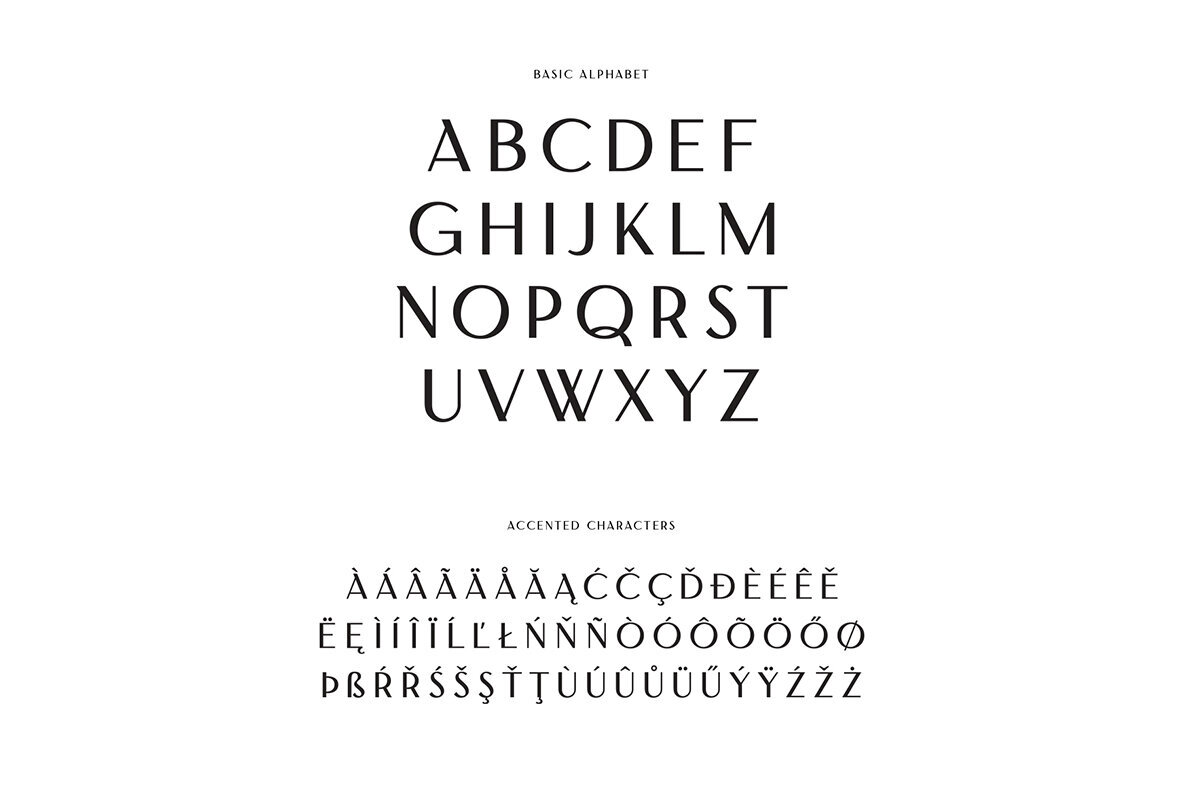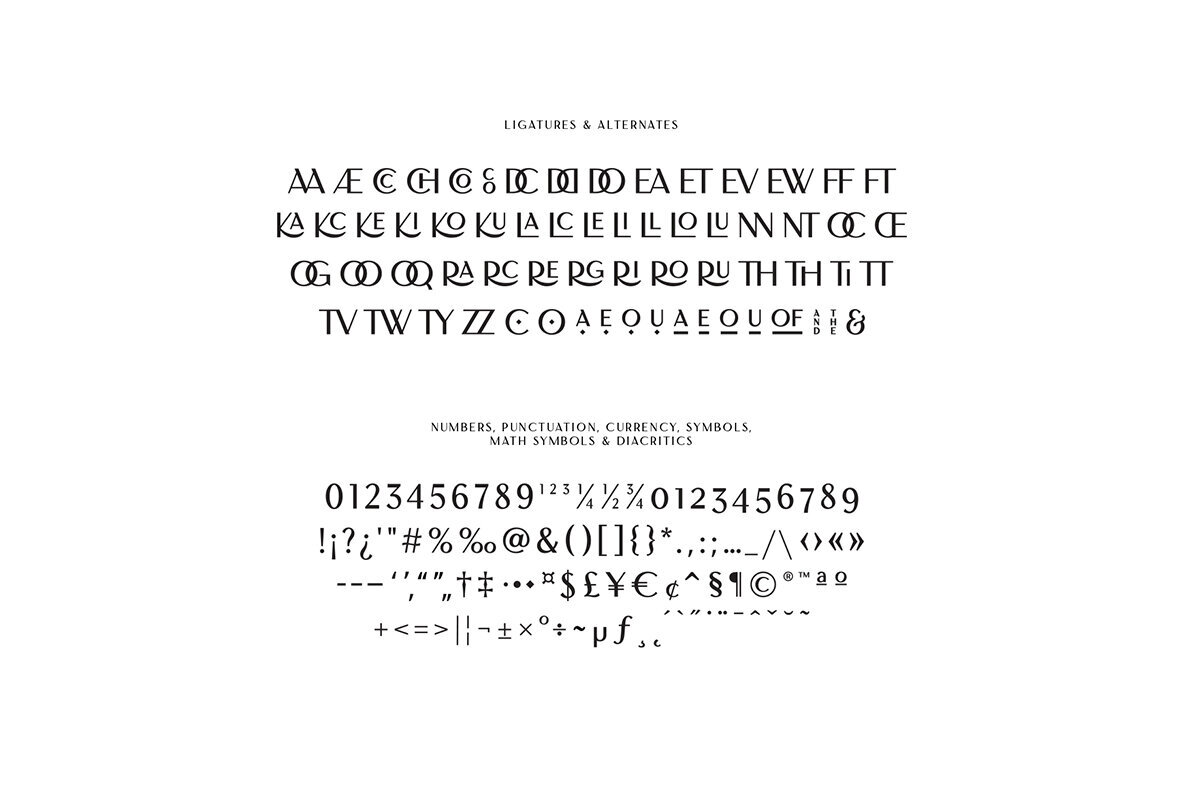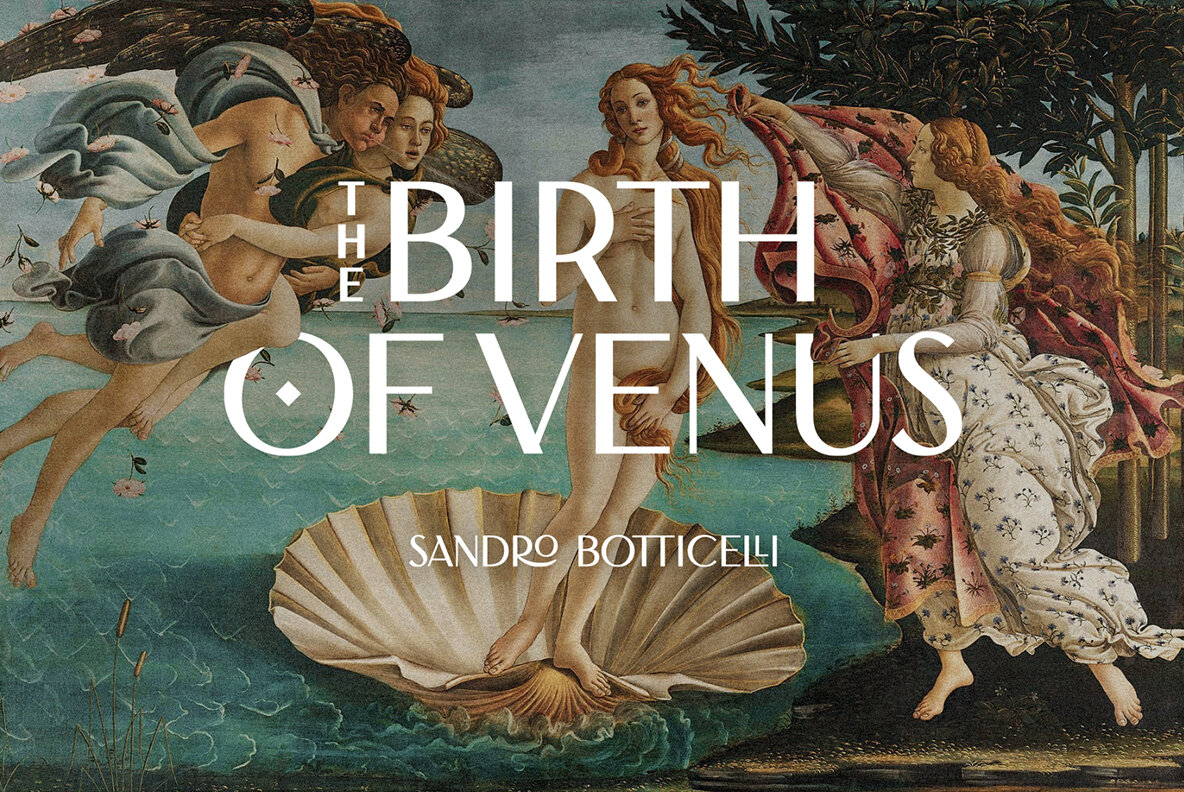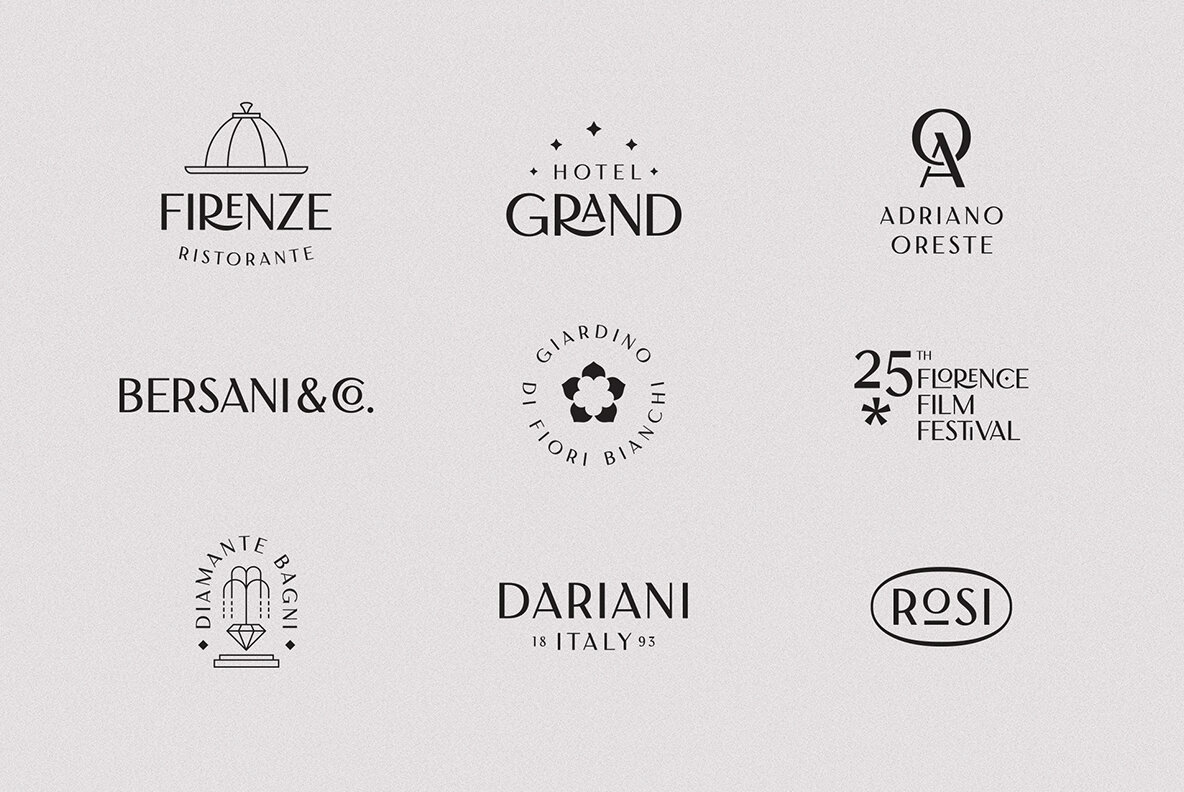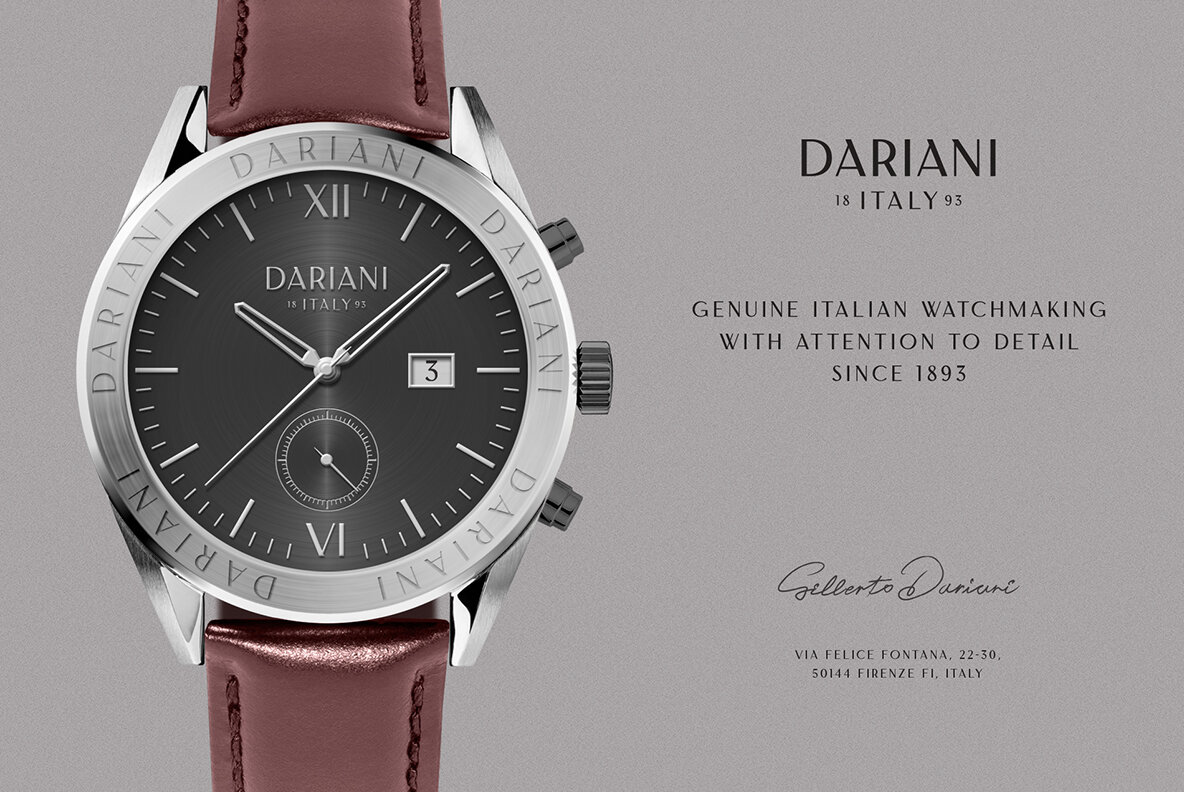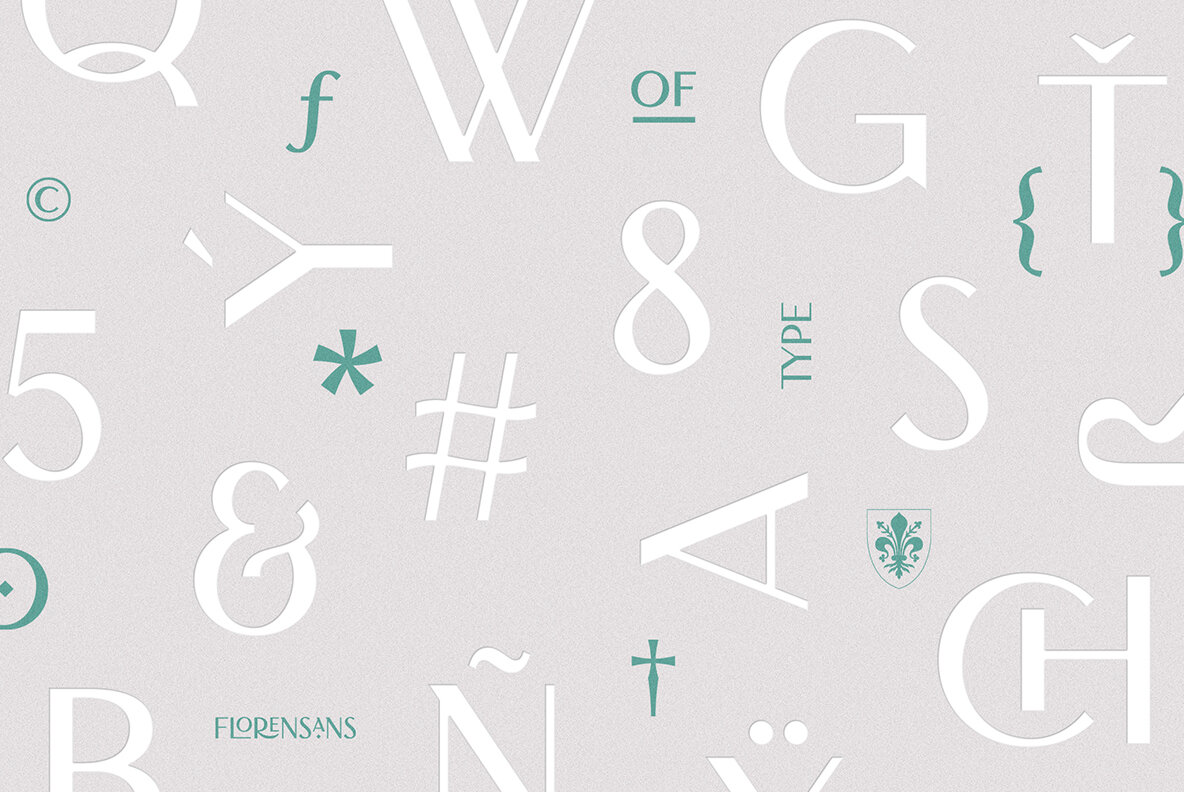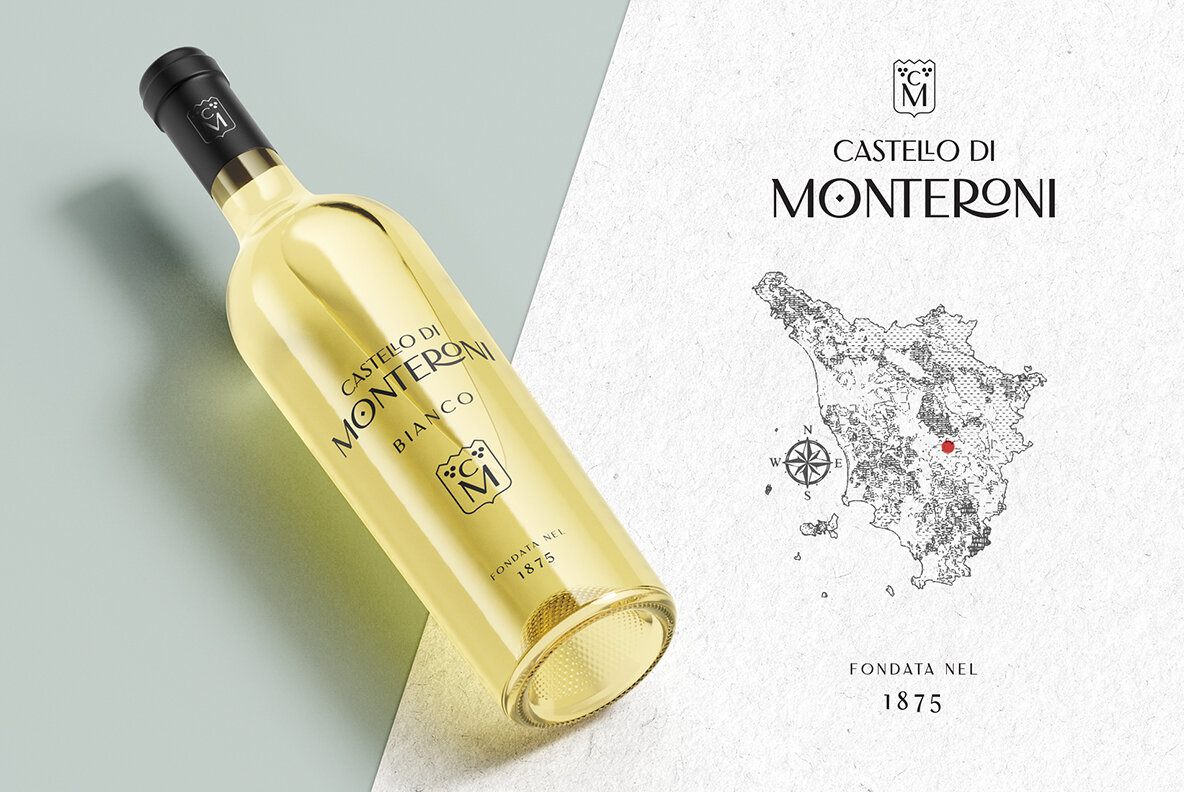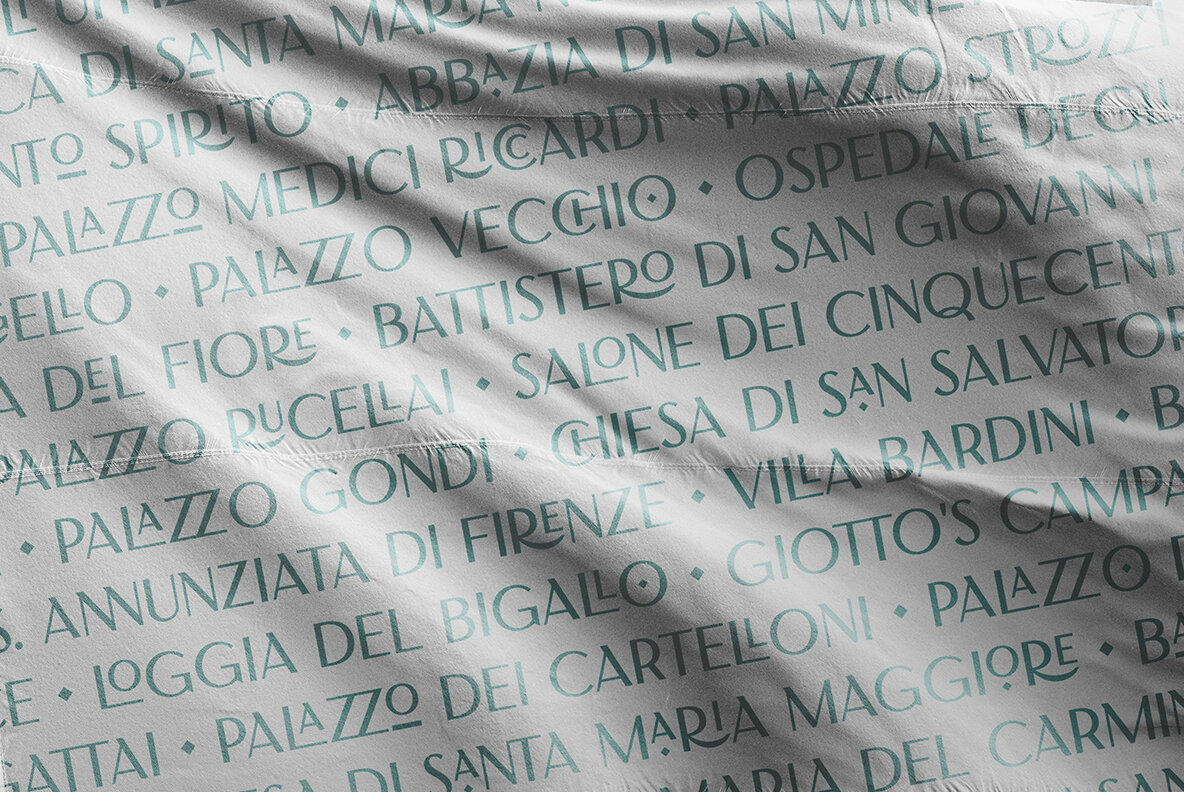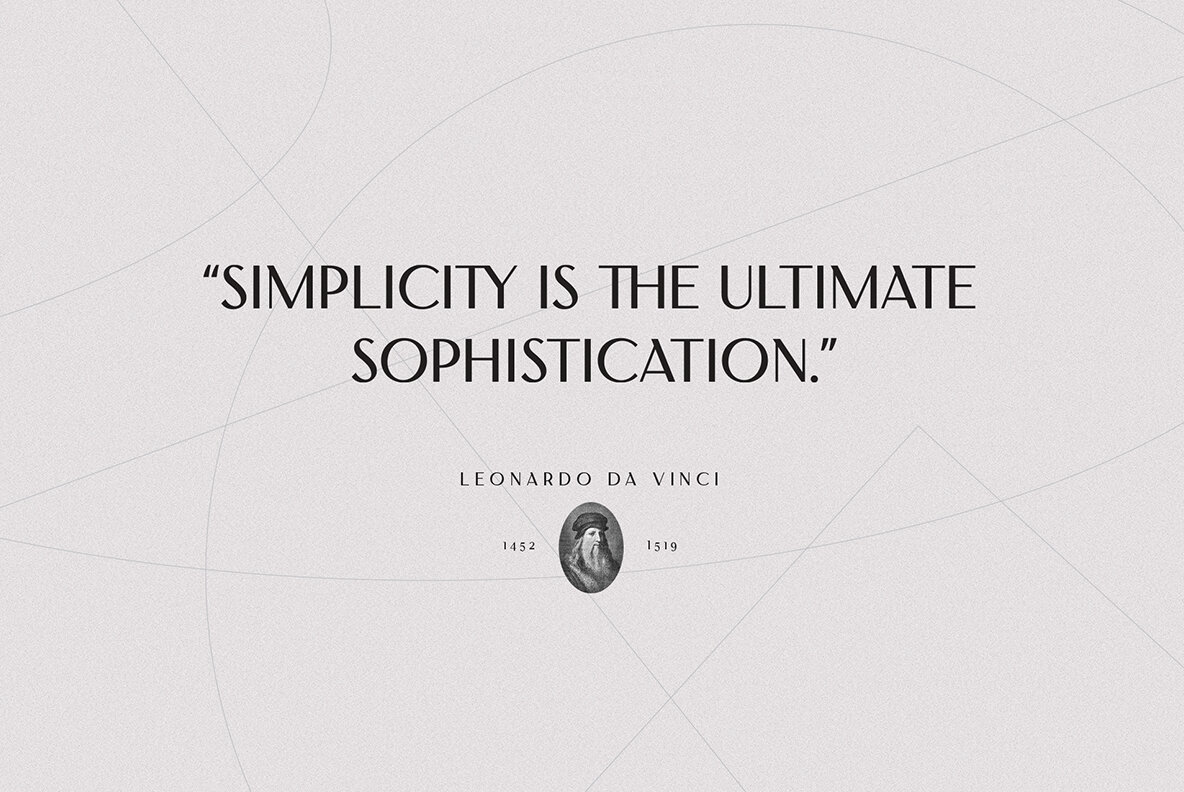
Florensans Font
Florensans is an all caps display sans serif typeface in elegant & modern style with ligatures, special alternative glyphs and old style figures. Florensans is ideal for headlines, headers, logos, labels, packaging, postcards, presentations, magazines, invitations, etc.
FEATURES:
- Basic latin alphabet A-Z
- 64 Ligatures & Alternates
- 56 Accented characters
- Numbers, Punctuation, Currency, Symbols, Math symbols & Diacritics
-Old style figures